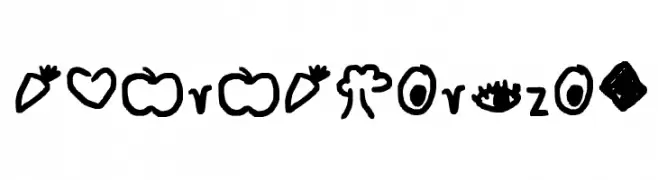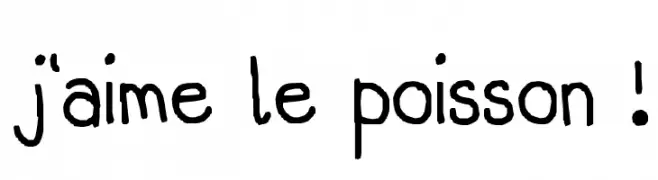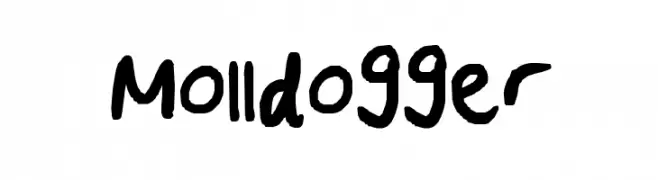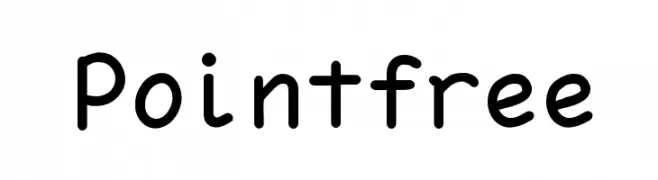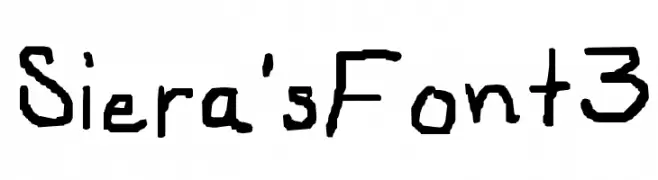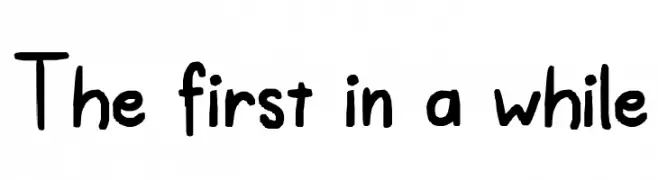
( elemental acts )
A playful, handwritten font with a casual and informal style.
A natural, handwritten font with a slight italic slant and casual style.
A playful, handwritten font with smooth curves and a casual style.
A playful, handwritten italic font with a casual and fluid style.
A playful, hand-drawn font with a casual, whimsical style.
A playful, casual handwritten font with a natural, organic flow.
A playful, handwritten font with smooth curves and a casual style.
A light, handwritten italic font with a casual and modern feel.
A playful, rounded handwritten font with a casual and friendly style.
A bold, playful handwritten font with a casual and friendly style.
A playful, rounded font with a hand-drawn, casual style.
A playful, hand-drawn font with a casual and approachable style.
A playful, narrow handwritten font with a casual and informal style.
A playful, casual handwritten font with smooth, rounded strokes.
A playful, handwritten font with smooth, flowing lines and a casual style.
A playful, handwritten font with a whimsical and casual style.
A playful, handwritten font with a casual and whimsical style.
A playful, casual handwritten font with smooth, rounded strokes.
A playful, casual font with rounded edges and a slightly condensed form.
A playful, handwritten-style font with rounded edges and a casual vibe.
A playful and casual font with rounded, smooth letterforms.
A playful, handwritten font with smooth, rounded edges and a casual flow.
A playful, handwritten font with rounded edges and a casual style.
A casual, handwritten script font with a friendly and fluid style.